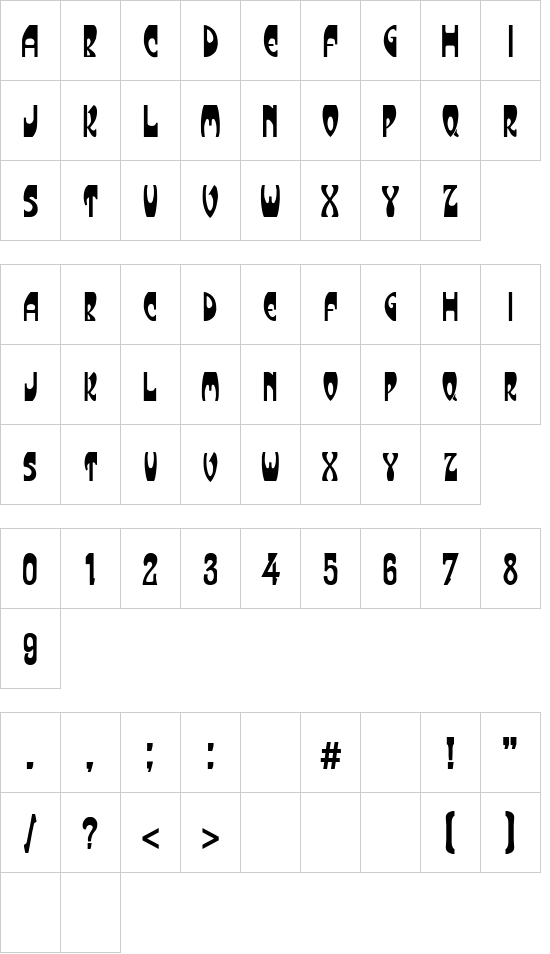
Art-Nouveau 1912 is a compact retro display face echoing the graceful curves and decorative spirit of early twentieth-century design. The condensed proportions keep the ornamental style tidy, holding on to the era's flowing detail while packing the letters closer for stronger, more poster-ready headlines.
Use Art-Nouveau 1912 for period-themed posters, upscale branding, invitations, and vintage signage where elegance needs to stay compact. The font is free to download as a TrueType file, and the preview lets you type your own text so you can see how its condensed, decorative letterforms suit a title or short phrase before downloading.